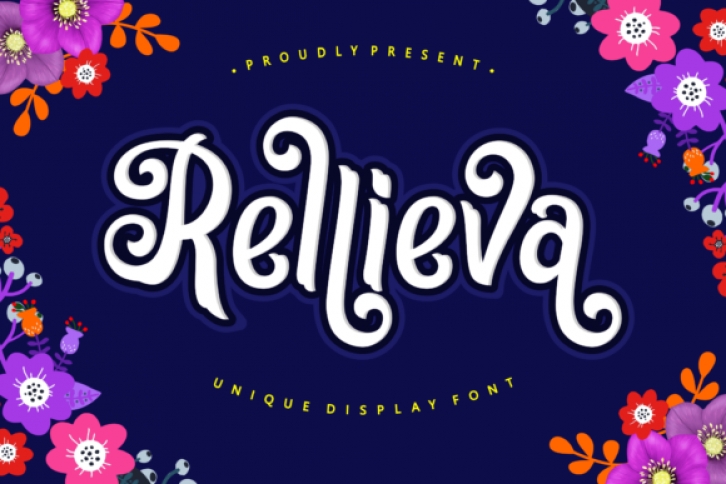
Rellieva is a cute and casual display font with an incredibly friendly feel. It features gorgeous swashes and ligatures that make this script incredibly versatile. Whether you’re looking for fonts for Instagram or calligraphy scripts for DIY projects, Rellieva will turn any creative idea into a true piece of art!